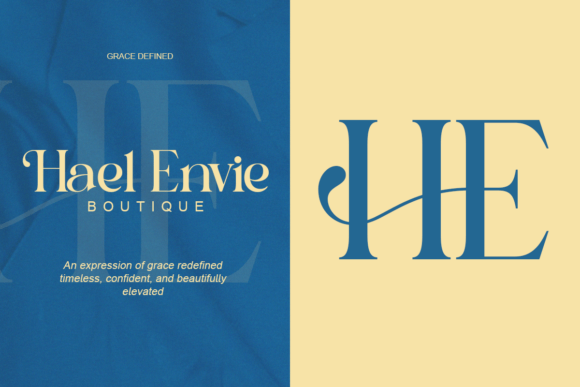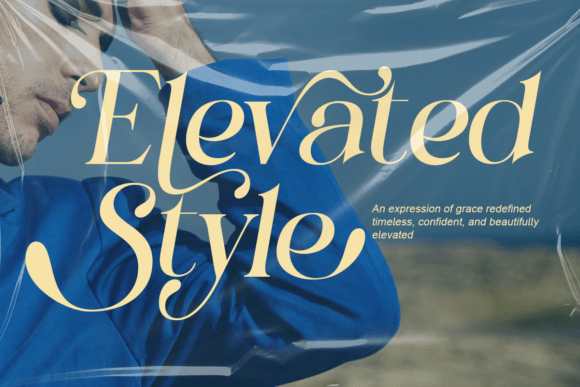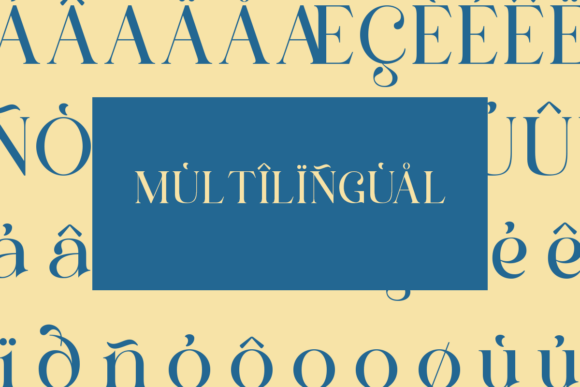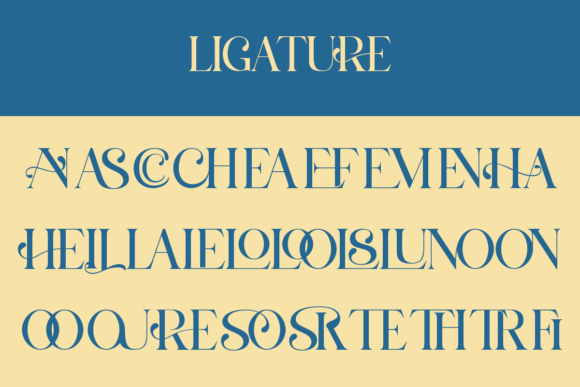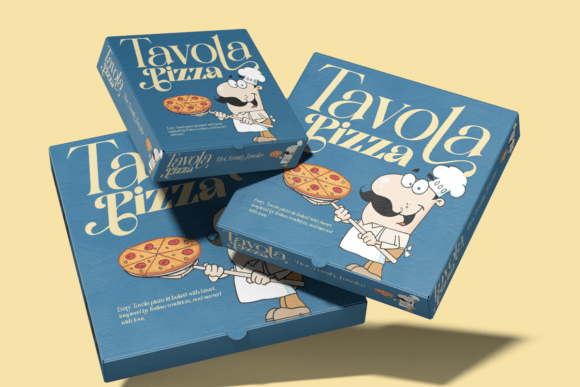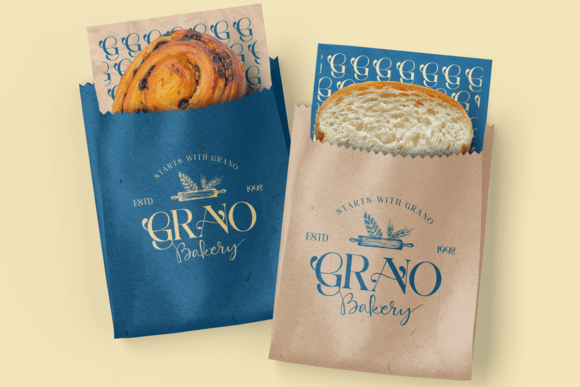
Introduction to Saltive Font
The Saltive font is a celebration of soft curves and rhythmic motion, blending a vintage spirit with a modern, clean execution.
As a modern serif display typeface, Saltive stands out with its unique teardrop terminals and playful, liquid-like ligatures, creating a sense of organic harmony This Saltive font is specifically designed for designers who want to inject personality and warmth into their projects without sacrificing professional polish.